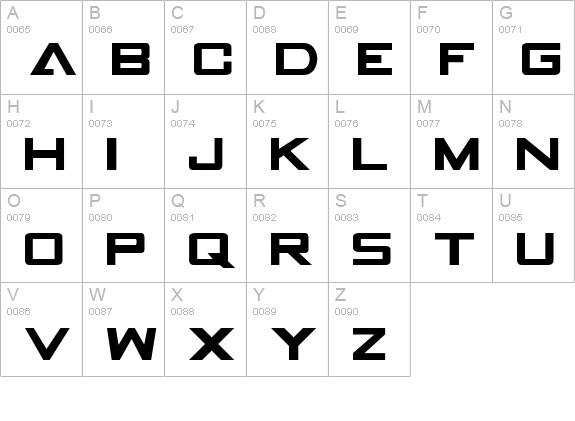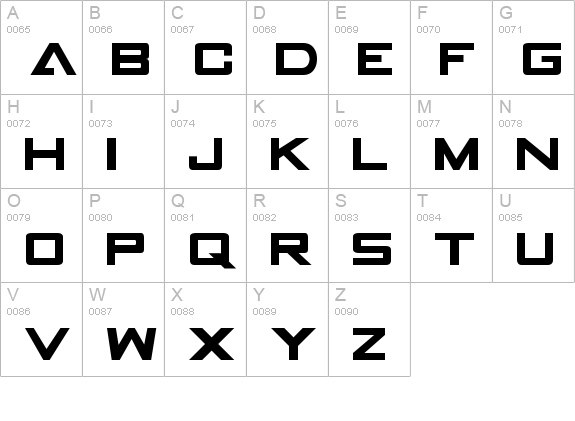
GAMECUBEN DualSet Font Details
GAMECUBEN DualSet font is a unique and dynamic typeface that combines a modern aesthetic with a touch of retro charm. Its bold, geometric shapes and sharp angles make it perfect for eye-catching headlines, logos, and branding projects. This versatile font comes in two styles - Regular and Italic - allowing for creative flexibility and endless design possibilities. What sets GAMECUBEN DualSet font apart is its ability to convey a sense of energy and excitement while maintaining a clean and polished look. Whether you're designing a poster, website, or packaging, this font is sure to make a bold statement. Best of all, GAMECUBEN DualSet font is available for free download at FontsMarket.com. So why wait? Add this striking typeface to your design arsenal today and let your creativity soar!